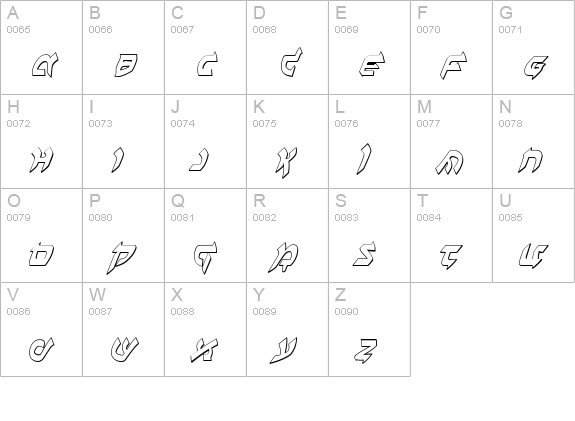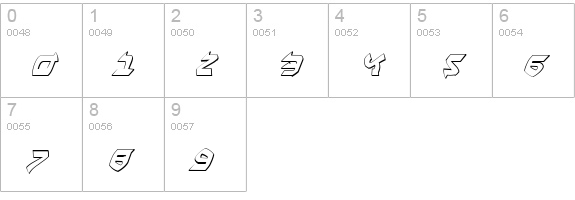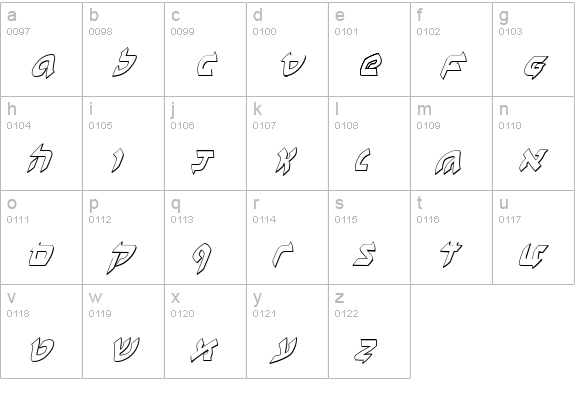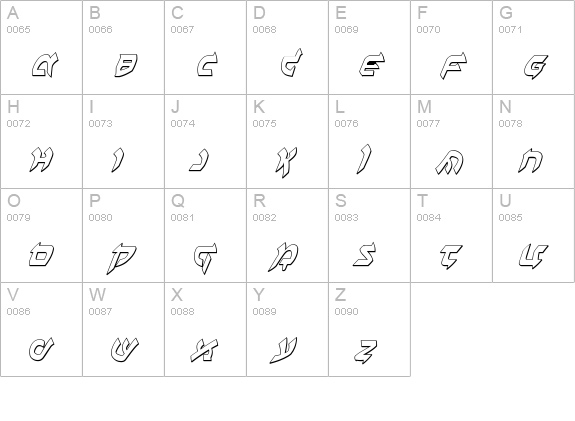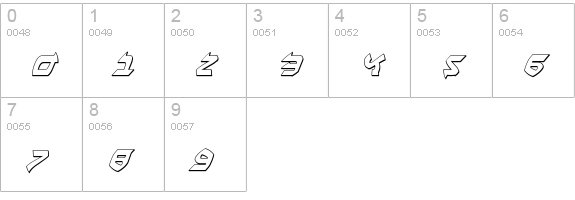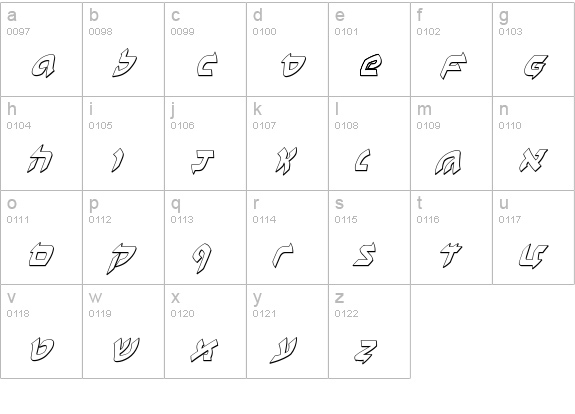
Ben-Zion 3D Italic is a distinctive, italic variant in the Ben typeface family \xE2\x80\x94 well suited to design and typography projects.
Introducing Ben-Zion 3D Italic font, a stunning and dynamic typeface that brings a modern twist to traditional design elements. With its sleek and futuristic 3D effect, this font is perfect for projects that require a bold and eye-catching aesthetic. The italicized style adds a sense of elegance and sophistication, making it ideal for a wide range of applications. What's even better is that Ben-Zion 3D Italic font is available for free download at FontsMarket.com. This means you can easily access this unique and versatile font to elevate your designs without any cost. Whether you're working on branding, advertising, or any other creative project, Ben-Zion 3D Italic font is sure to make a lasting impression. Get your hands on this amazing font today and take your designs to the next level!